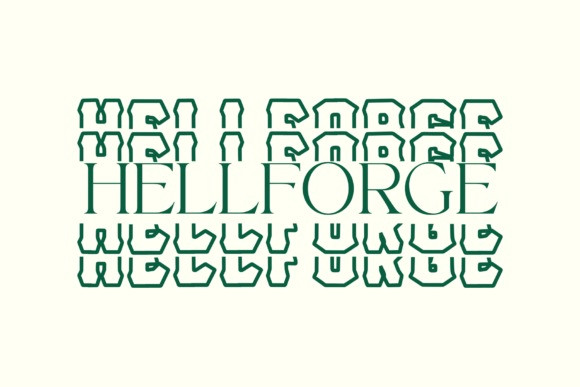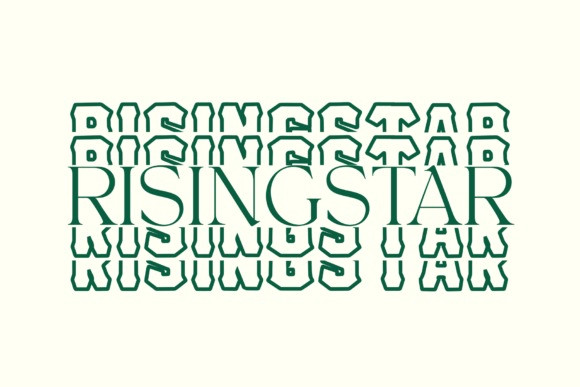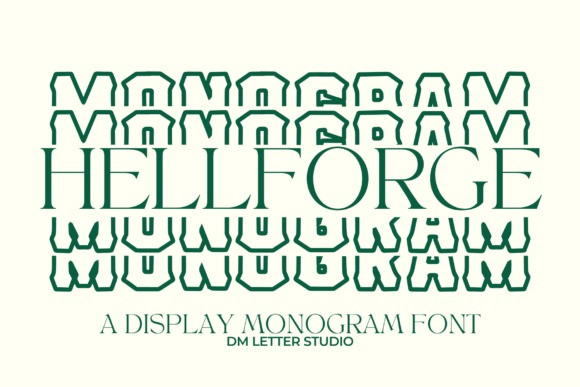
Hell Forge Stacked Monogram Font
Hell Forge Stacked Monogram Font is a bold stacked monogram font built for impact. Letters stand tall, tight, and readable, so initials hit hard even in small spaces. Because each line stacks cleanly, names, dates, and short words become badge-like marks that work on shirts, tumblers, patches, and thumbnails. Moreover, the rugged geometry loves outlines, metallic foils, and laser cuts, which makes shop photos look premium right away.
Why this stacked monogram font sells
You need fast personalization that still looks custom. This stacked monogram font gives you compact power for jersey nameplates, cap badges, tool tags, and gym merch. Consequently, long surnames stay tidy, team initials feel strong, and product variants publish quicker. Plus, clear counters keep vinyl cuts and engravings crisp on wood, steel, acrylic, and leather.
Design faster, launch more
Styling tips for Hell Forge Stacked Monogram Font:
Keep initials large; let negative space breathe.
Add double strokes or stitch edges for a patch look.
Use soft inner lines for depth on dark fabric.
Pair with a clean geometric sans for captions and prices.
Optimized outlines for engraving, foil, and clean vinyl cutting
Who it’s for:
Makers and teams who want rugged identity with zero fuss: garages, gyms, esports, clubs, and gift shops. Ultimately, Hell Forge Stacked Monogram is the stacked monogram font you reach for when space is tight and impact matters.